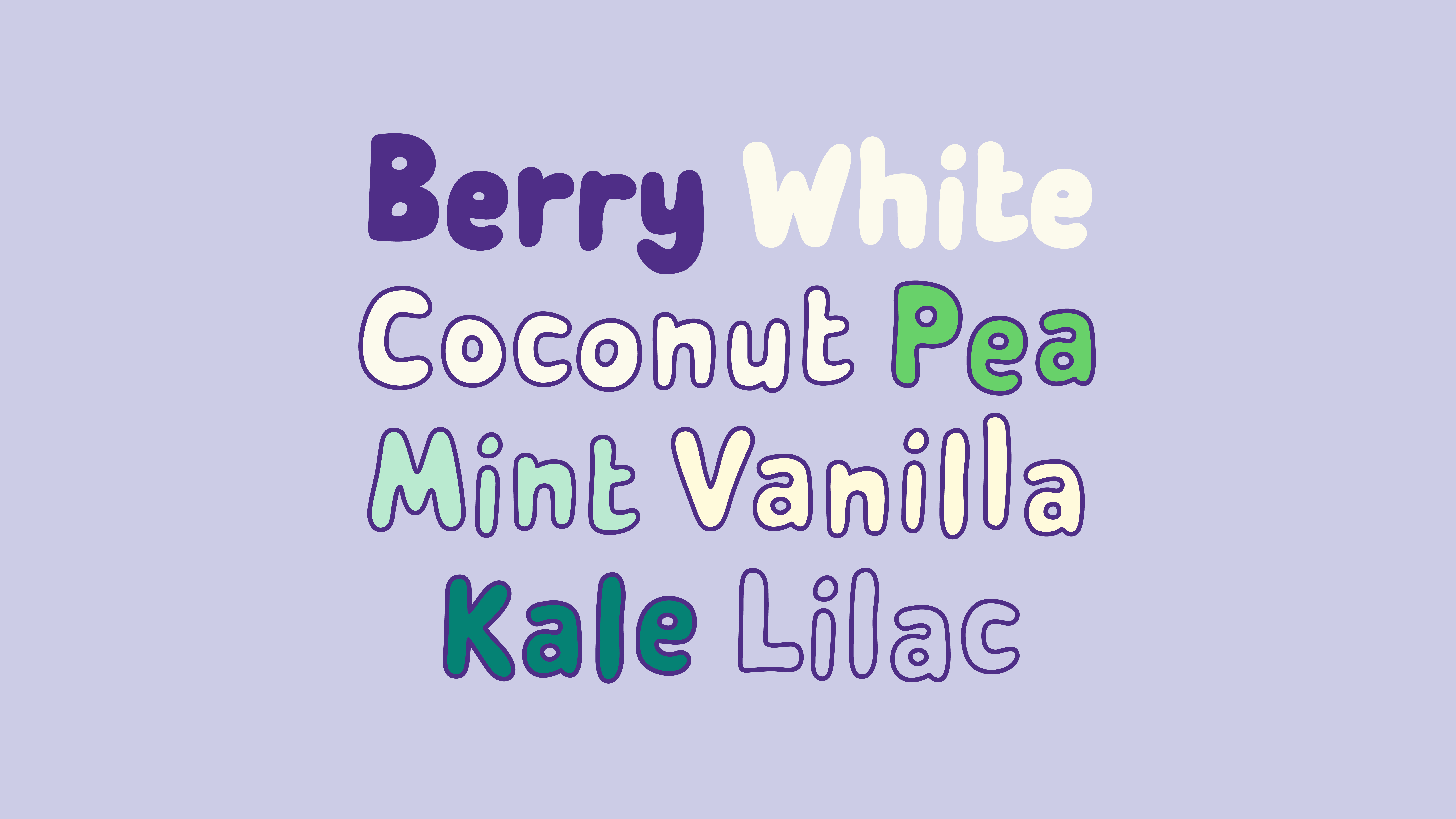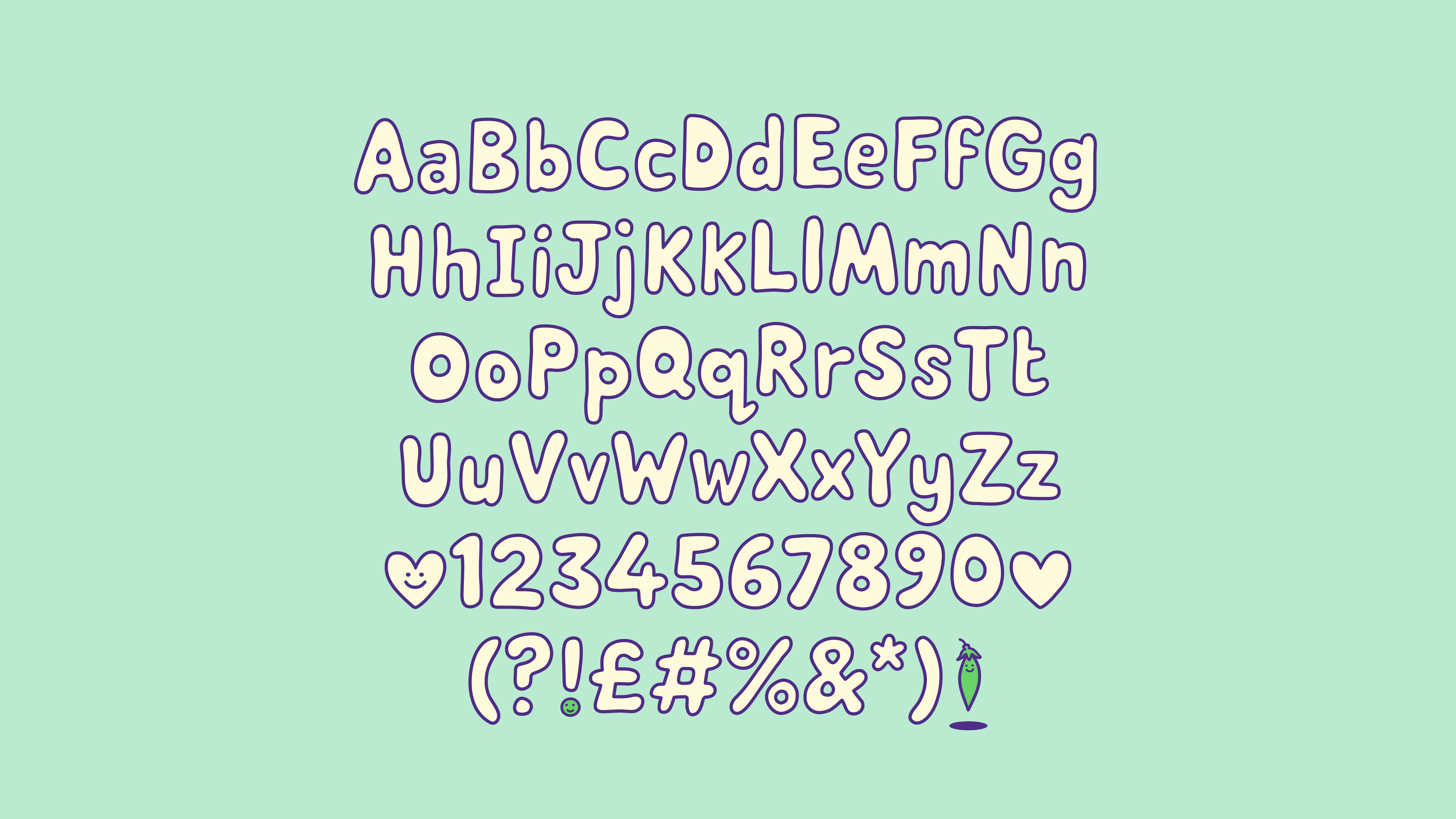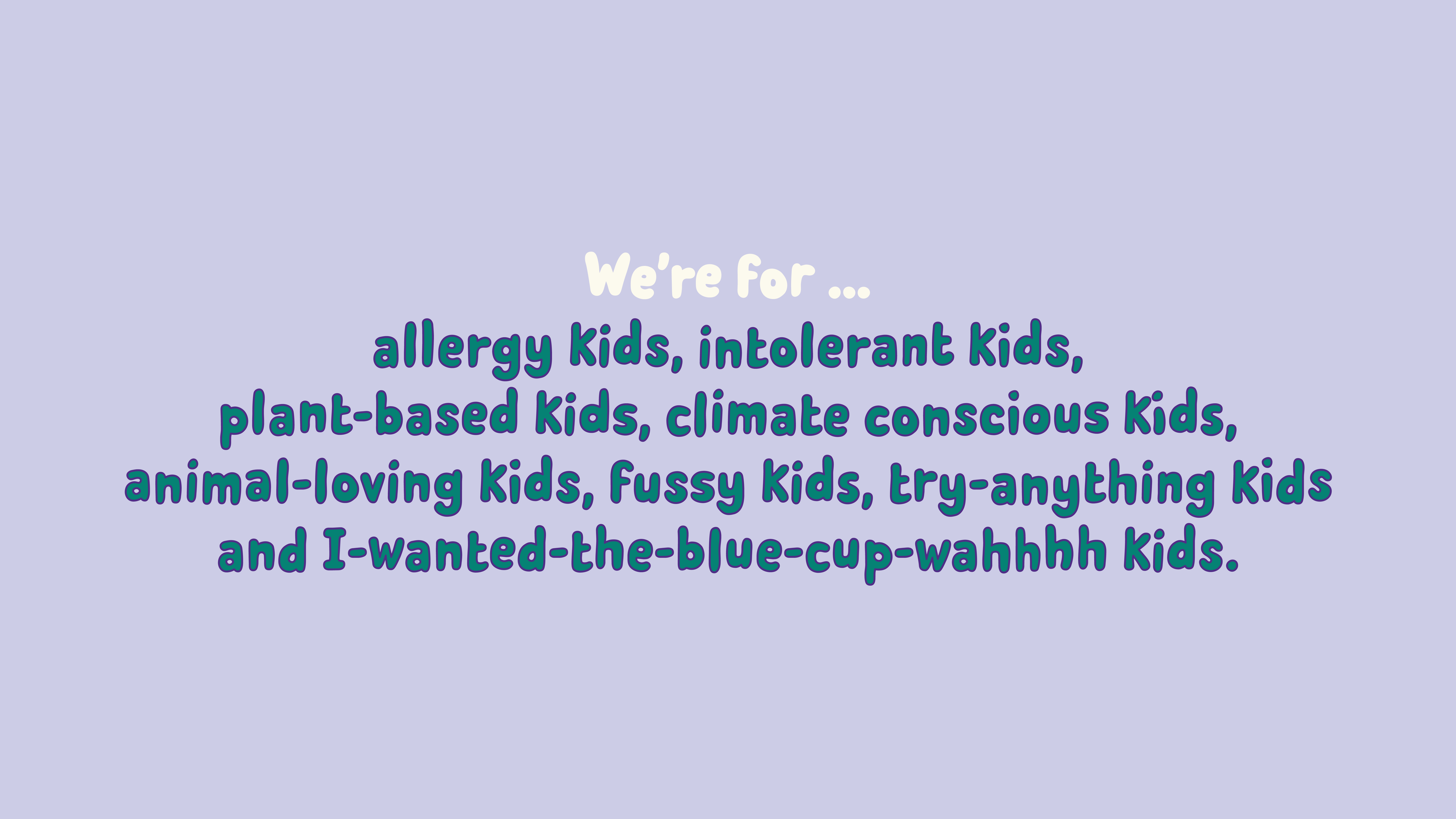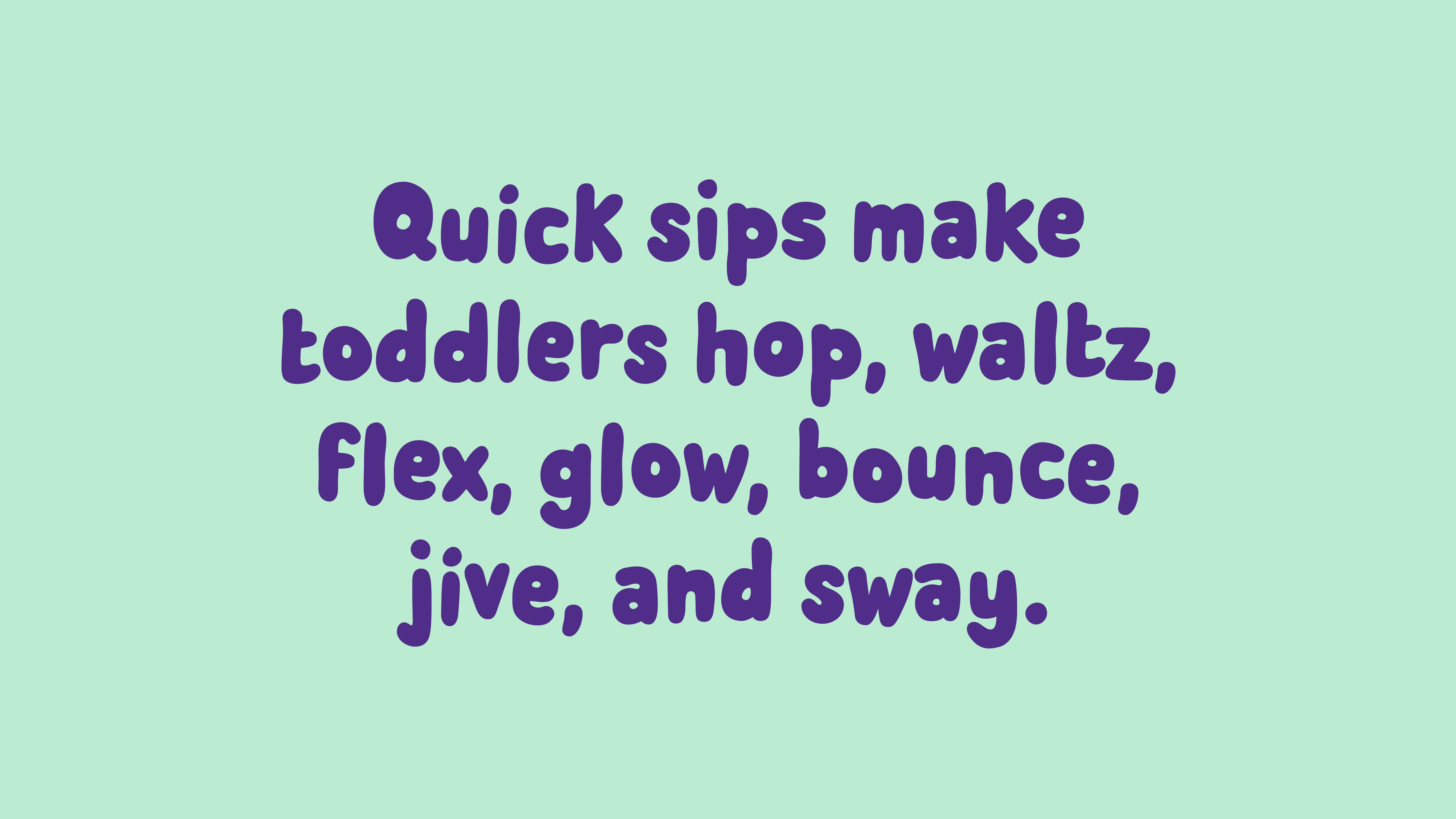
A playful, personality-packed typeface intended to bring the lively energy of toddlers to life.
Grow with Iris is redefining plant-based nutrition for kids, making it easier for families to choose a free-from milk alternative without compromise. But while their mission was bold and forward-thinking, their branding needed the same energy.
Sophie Paynter, co-founder of Grow with Iris, approached us to help bring the brand to life through typography. They needed a playful and energetic font to match their fun and feel-good approach.
We loved partnering with F37® to turn our sketches into a fully functioning, bouncy, toddler-tastic font and logo. We gave the team a technical challenge that they rose to – they created both an outlined and a solid version in pre-filled colours, with variable letterforms too. The outlined headline version mirrors our character illustration style and the solid filled version is used in our logo but also works brilliantly for smaller copy.
Our Iris font helps give Grow with Iris a huge amount of stand out in a category that’s dominated by faceless corporate giants and medicalised solutions. With F37®’s help, we’ve created a brand that’s friendly, fun and welcoming.
Sophie provided vector sketches of her hand-drawn characters, and we meticulously transformed them into a fully functional font. We refined the details and programmed the movement giving a playful bounce to each character as you type. Behind the font is an extensive array of OpenType® code to allow for backtracked contextual alternates and a baseline bounce. This gives each word a uniquely playful appearance.
With eight vibrant variations—Pea, Lilac, Berry, Mint, Coconut, White, Vanilla and Kale—each takes on the colour of it’s namesake, bringing a natural and wholesome feel to every word. The character set even includes some adorable icons, adding an extra touch of fun!
The colour is imbedded within the font files using two Color Font formats. Each style is double-encoded with SVG and CPAL colour values, ensuring maximum compatibility across various environments. By imbedding colours directly into each style, Grow with Iris can maintain strict brand guidelines and prevent rogue hex values from disrupting its identity.
The result? A font that’s as expressive and full of life as the toddlers Grow with Iris was made for!